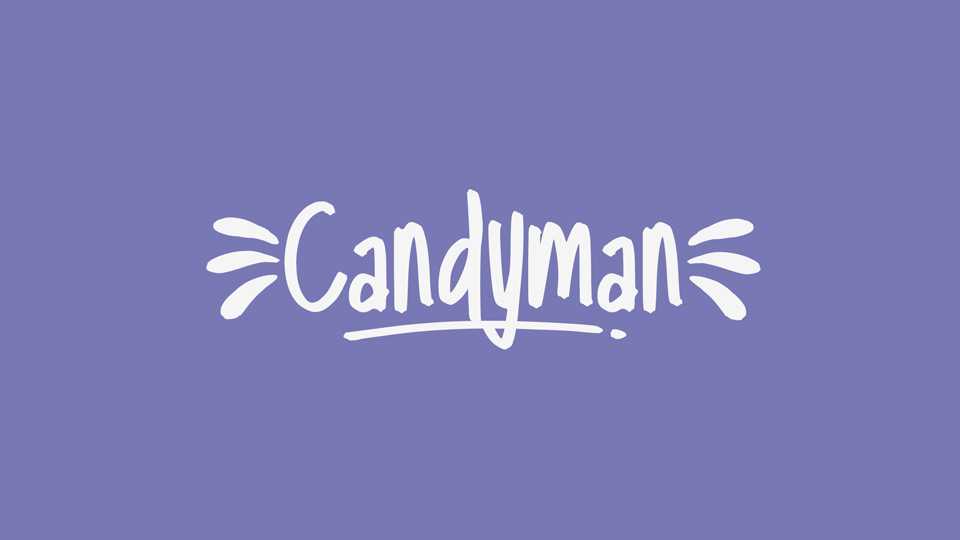
Download Candyman font, a funny handwritten typeface that infuses your designs with a delightful dose of playful humor and energetic charm. Candyman font features a whimsical and bouncy design, with each letter exuding a sense of lively movement.
Designer: Linafis Studio